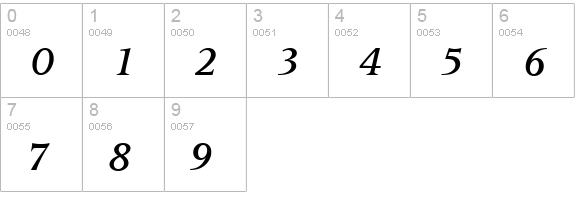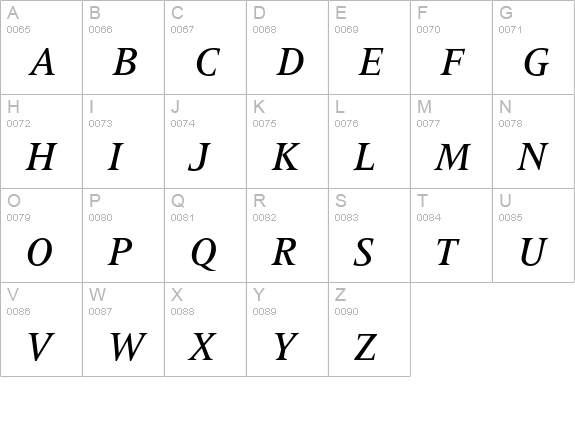
Metaphor-Medium-Italic Font Details
Metaphor-Medium-Italic is a balanced, medium-weight, italic variant in the Metaphor typeface family \xE2\x80\x94 well suited to sub-headlines, navigation, and balanced editorial work.
Introducing Metaphor-Medium-Italic font, a versatile and elegant typeface that exudes sophistication and creativity. With its slanted and stylish design, this font is perfect for adding a touch of flair to any project. The italicized letters convey a sense of movement and dynamism, making your text come alive on the page. What sets Metaphor-Medium-Italic font apart is its seamless blend of modernity and tradition, making it suitable for a wide range of design applications. Whether you're working on a branding project, marketing materials, or creative designs, this font will elevate your work to new heights. The best part? Metaphor-Medium-Italic font is available for free download at FontsMarket.com. So go ahead, unleash your creativity and bring your ideas to life with this stunning typeface. Let Metaphor-Medium-Italic font be the medium through which your words and designs speak volumes.